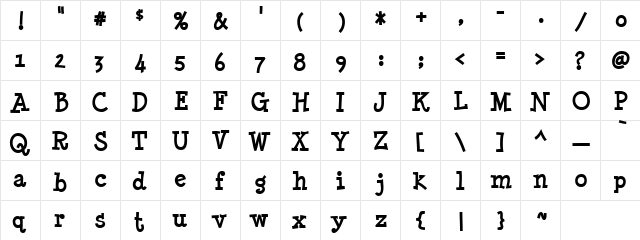
Navathle Lity Bold Regular
Design Context for Navathle Lity Bold Typeface
Navathle Lity Bold offers clean, dependable letterforms without strong stylistic allegiance, making it a practical choice for designers who need flexibility. Its bold stroke weight gives it real presence on the page.